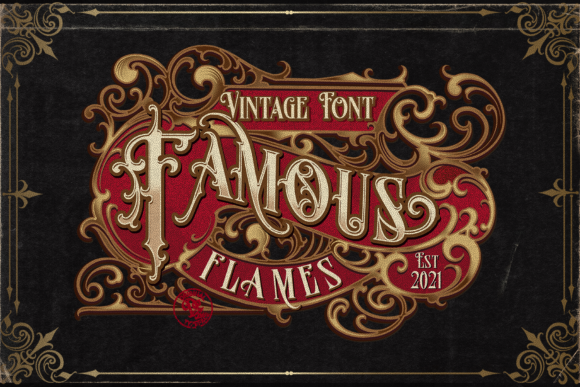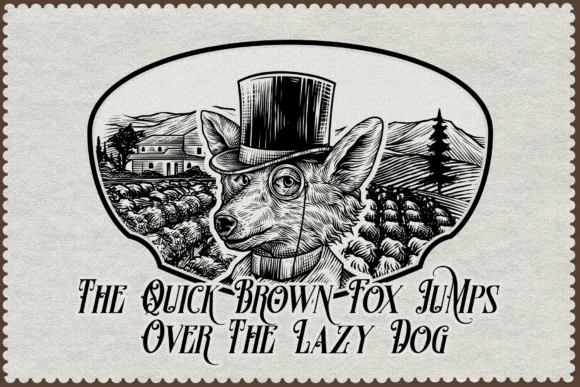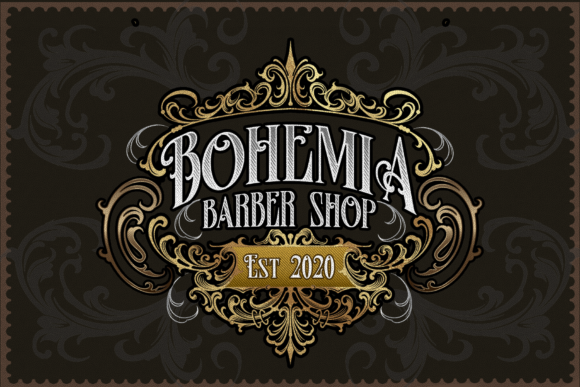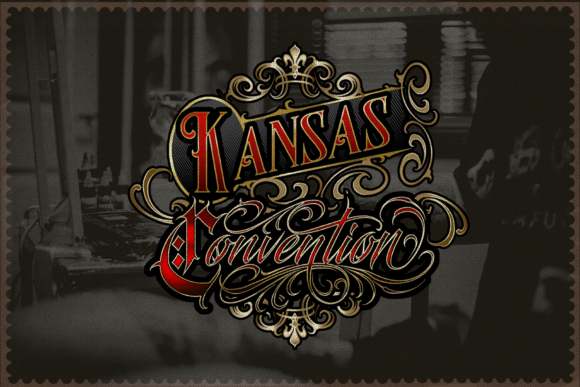
Famous Flames Font
About the Famous Flames Font
Get ready to be inspired by Famous Flames Font, a fresh and dynamic typeface for modern creators. Create gorgeous and timeless designs with Famous Flames, an interesting and unique blackletter font.
Fall in love with its incredibly stylish look and use it for logos, quotes, invitations, business cards, presentations and more!
Famous Flames excels in display applications such as headlines, logos, and short impactful quotes. Its bold, ornate nature makes it ideal for branding projects aiming for a vintage or sophisticated feel, particularly in industries like fashion, spirits, or high-end goods. Avoid using it for body text or long-form content; its intricate details become illegible at smaller sizes.
The font’s strong personality pairs well with clean, modern sans-serifs like Montserrat or Lato for contrast and readability in multi-font designs. For a more traditional pairing, consider a classic serif like Garamond or Didot to balance the boldness of Famous Flames with a sense of refined elegance.
Its core personality is bold and sophisticated, conveying a sense of timeless quality and luxury. Using it sparingly ensures maximum impact.
Famous Flames Font Usage Examples
Famous Flames Font Example